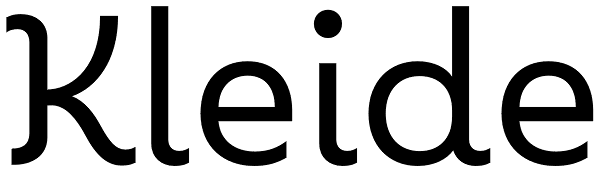
Kleide
Kleide is an elegant font inspired by handwriting. The Kleide family includes 6 weights, from Thin to Black, with their corresponding italics. This elegant family includes OpenType Features such as Proportional Figure, Tabular Figures, Numerator...